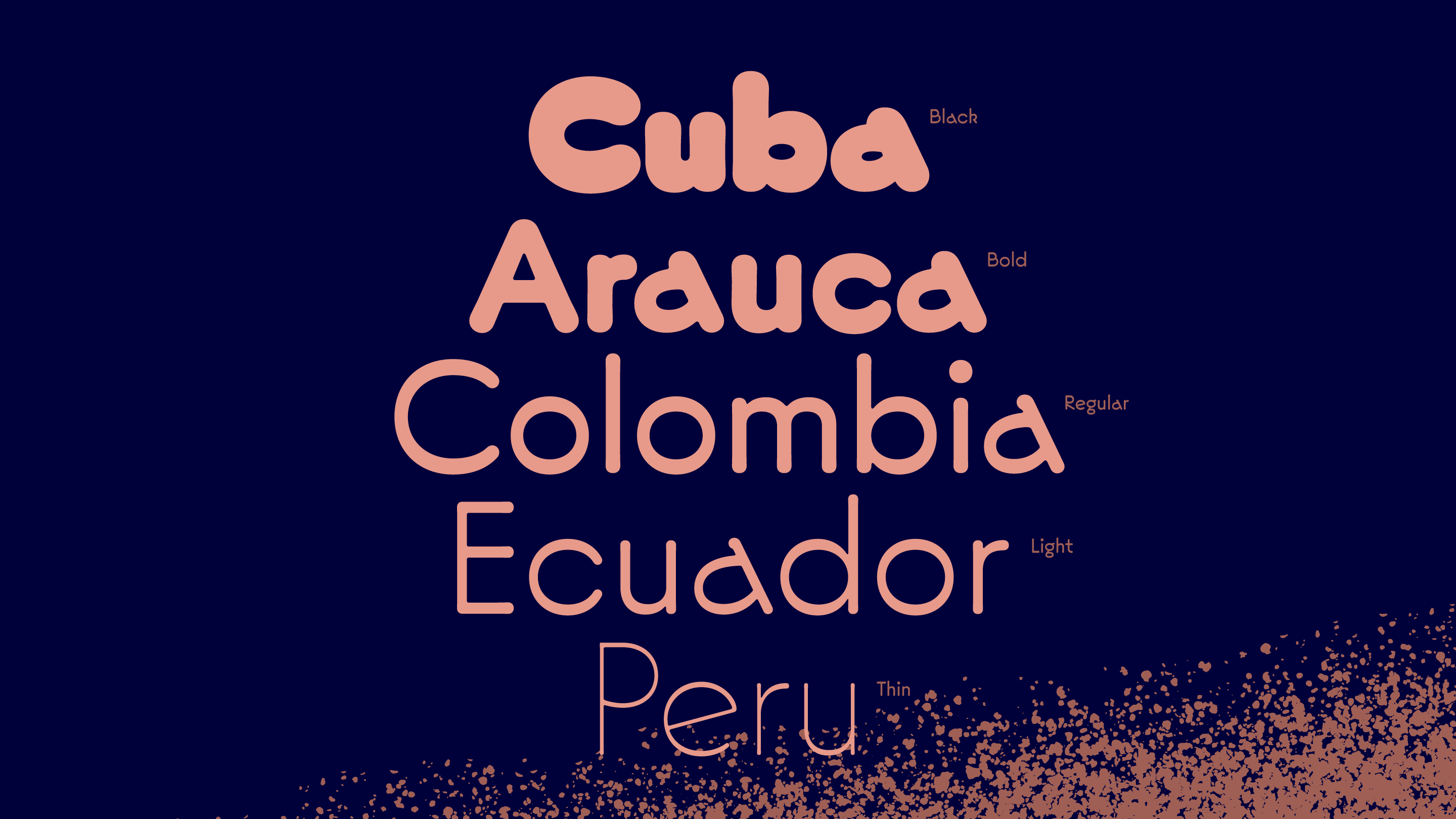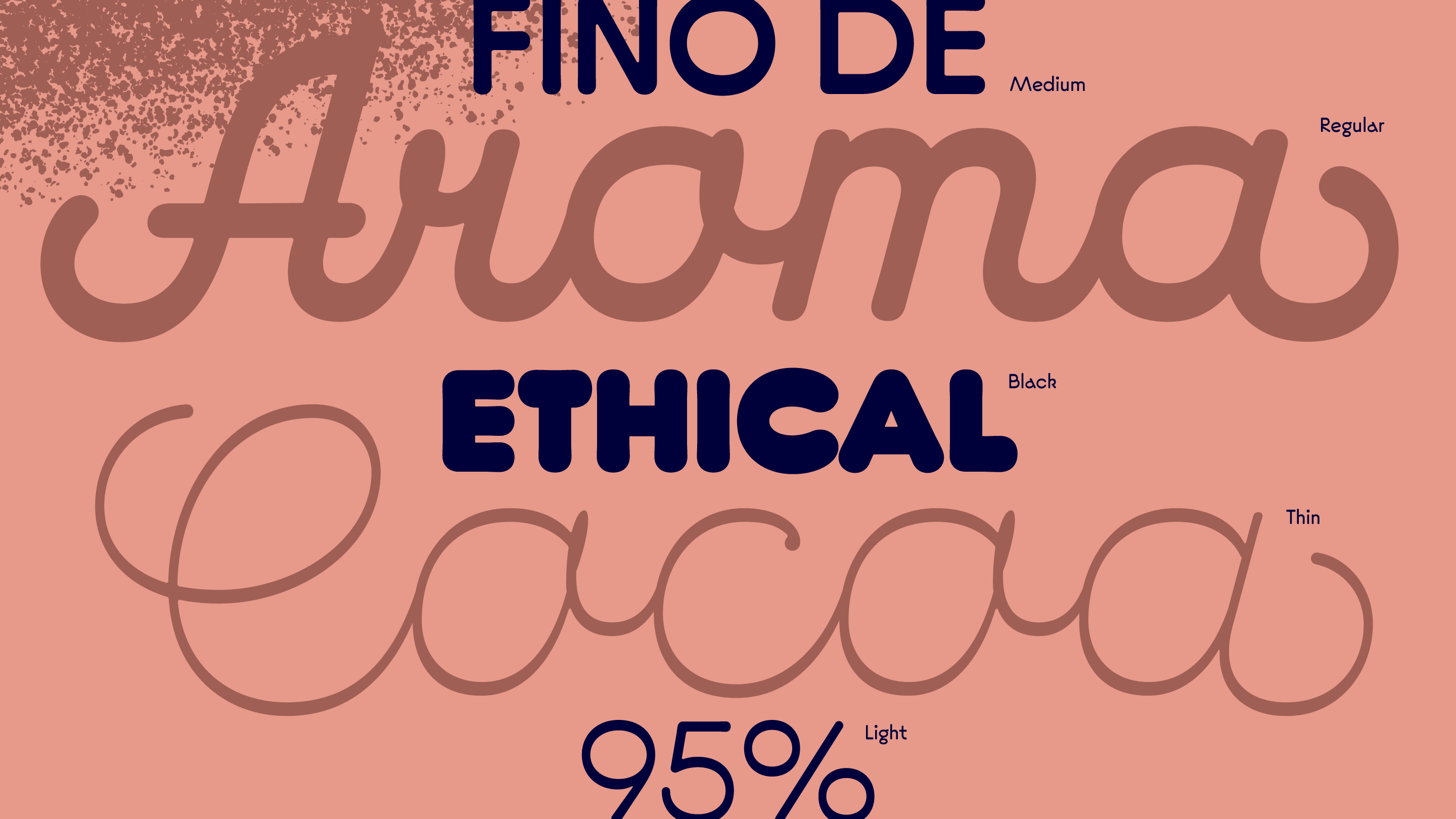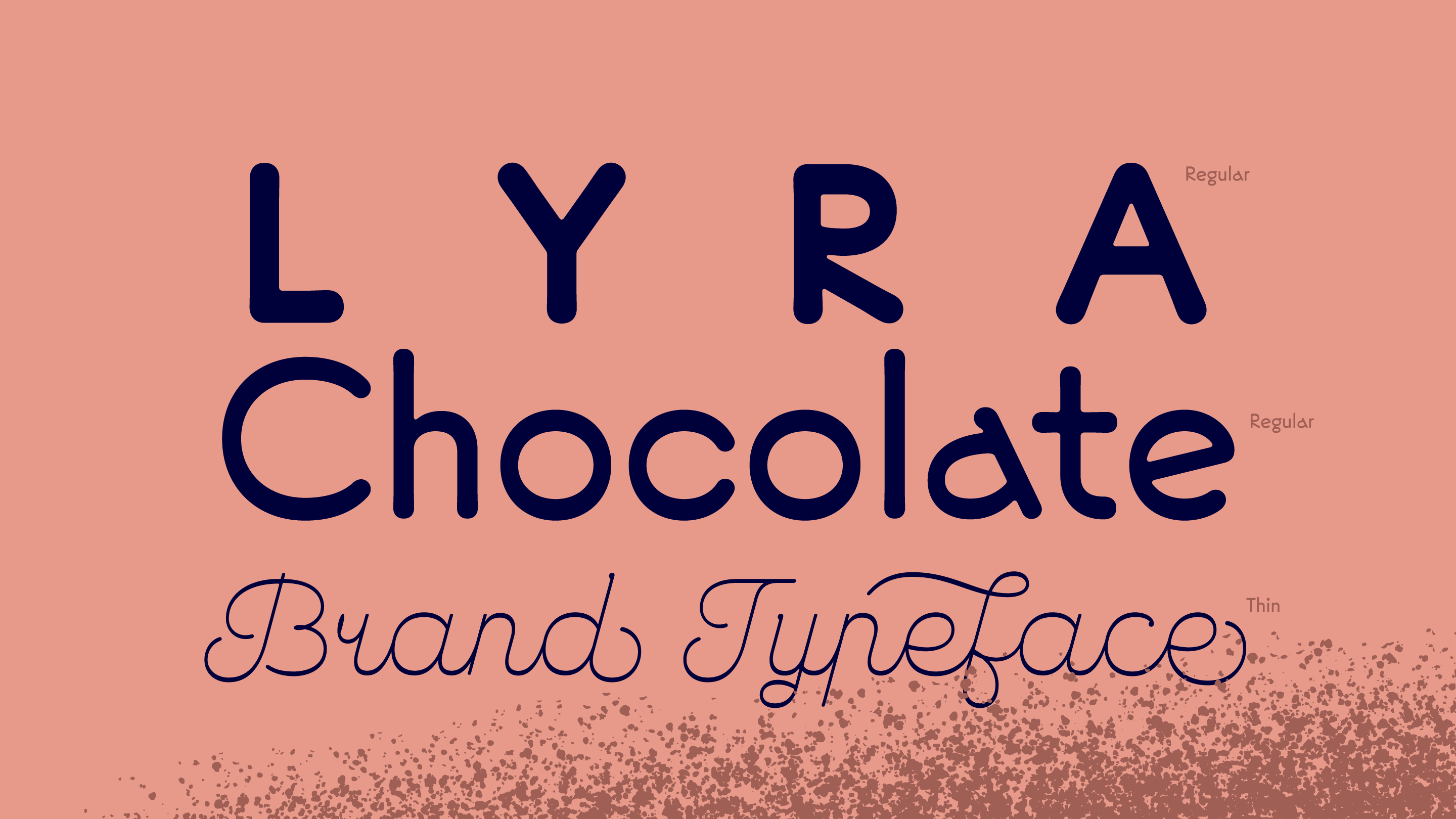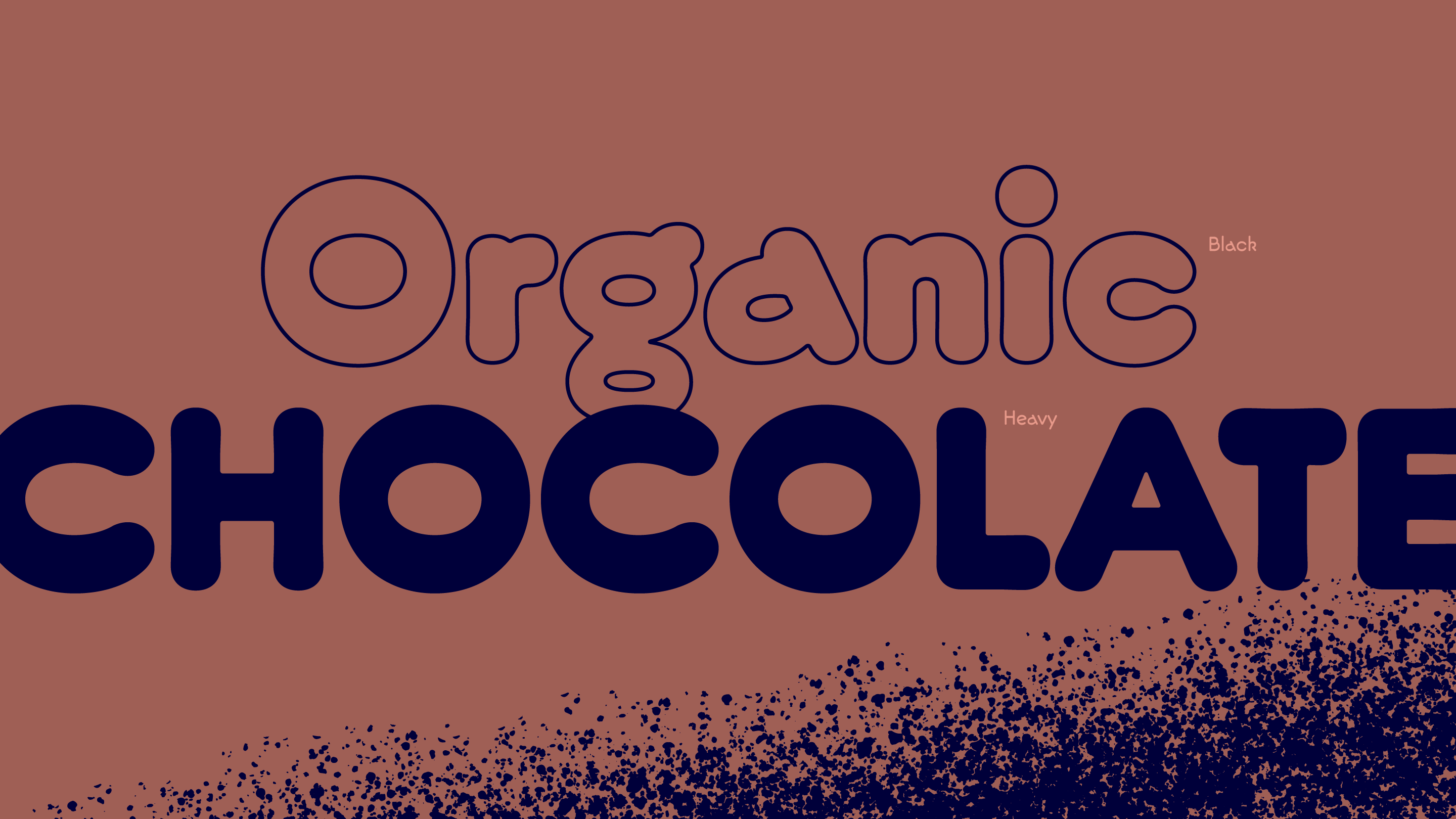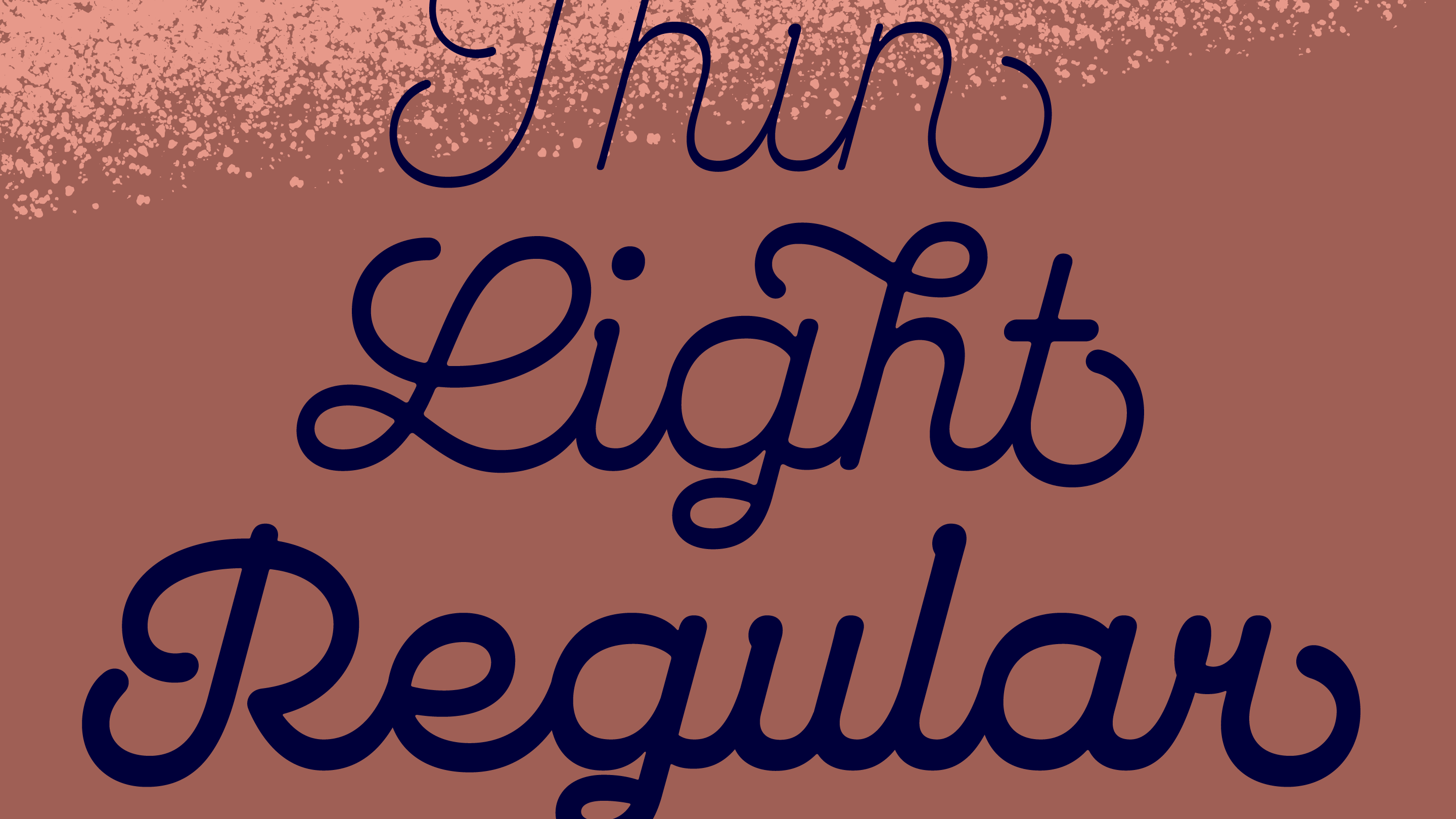
- Slovak National Design Award Nomination
Lyra
The Lyra Sans and Lyra Script typefaces were created specifically for use in the visual identity and packaging design of the Slovak chocolate manufacturer Lyra.
The typefaces use an unorthodox inverted contrast, Lyra Sans is available in seven styles from Thin to Black, Lyra Script has three styles – Thin, Light and Regular, corresponding to the three thinnest styles of Lyra Sans.